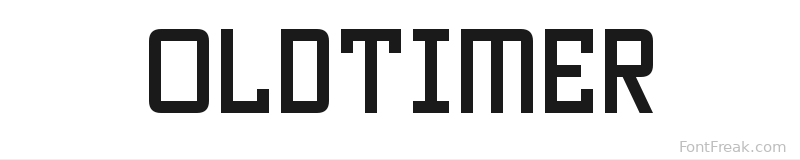
Oldtimer
The Oldtimer font by GGBot is a captivating display typeface that draws inspiration from vintage aesthetics while maintaining a modern flair. As a decorative font, Oldtimer features a unique blend of bold strokes and playful curves, making it stand out in any design project. The stroke weight is consistently thick, offering a robust presence, while the subtle contrast between the letterforms adds an engaging depth. The spacing is well-balanced, ensuring that each character is easily readable while maintaining a sense of elegance.
This font is particularly suited for a variety of creative applications. Its charming style makes it an excellent choice for wedding invitations, where a touch of nostalgia can evoke heartfelt emotions. Additionally, Oldtimer works beautifully on movie posters, adding a retro vibe that can capture attention and convey a thematic essence. Restaurant menus can also benefit from its inviting appearance, drawing patrons in with warm and welcoming typography. Furthermore, this font is ideal for branding projects aimed at small businesses that want to project a unique identity, such as artisanal shops or vintage boutiques.
In conclusion, the Oldtimer font stands out not just for its aesthetic appeal but also for its versatility across numerous design contexts. With its distinct personality and inviting presence, the Oldtimer font free download is a must-have for anyone seeking to enhance their creative projects with a touch of nostalgia and sophistication.